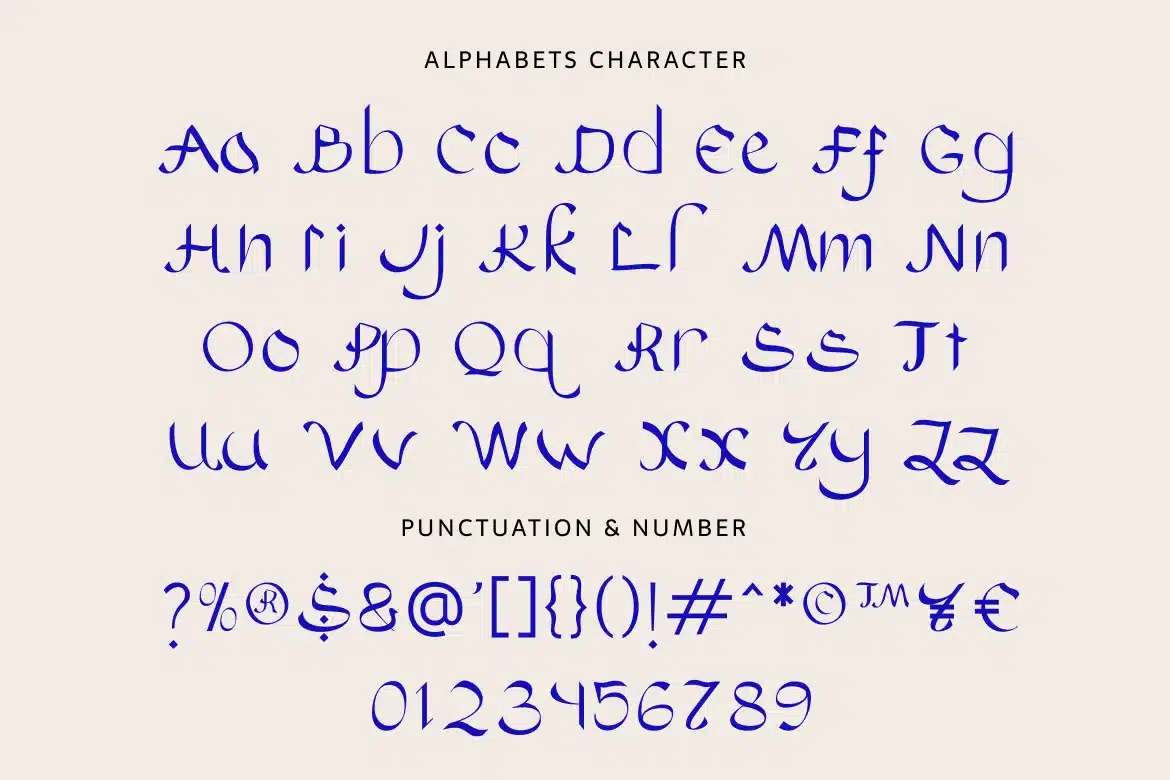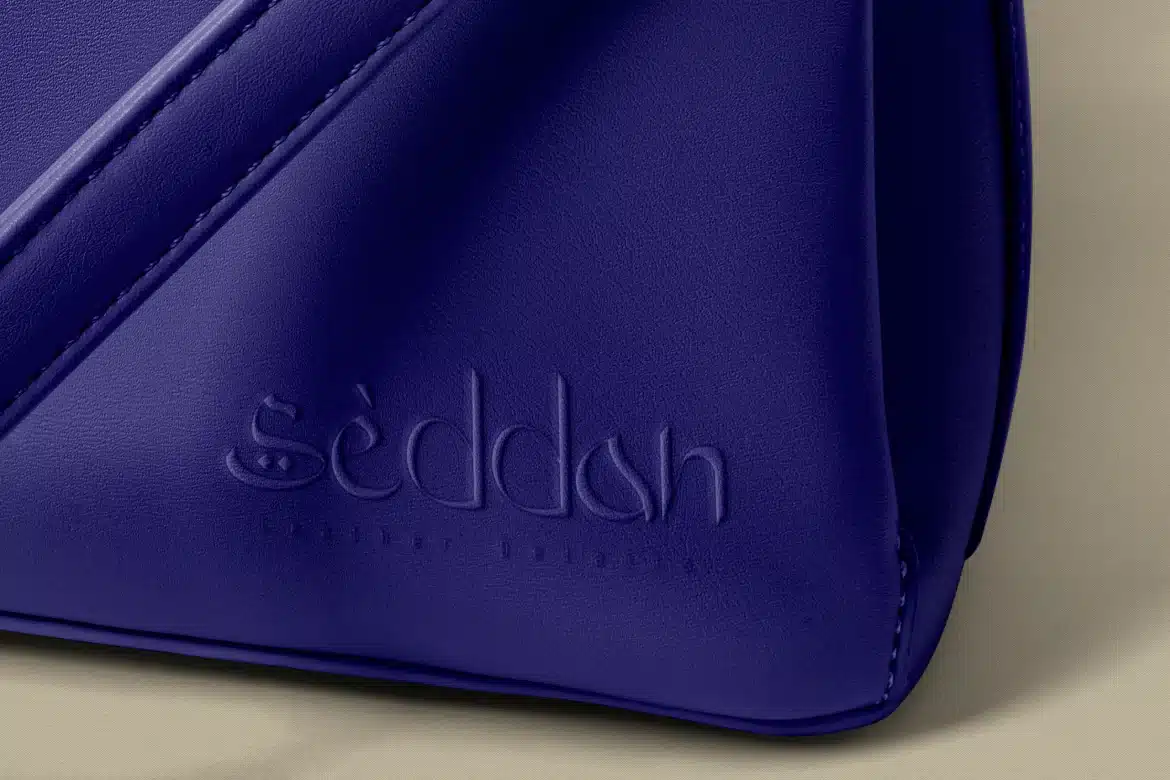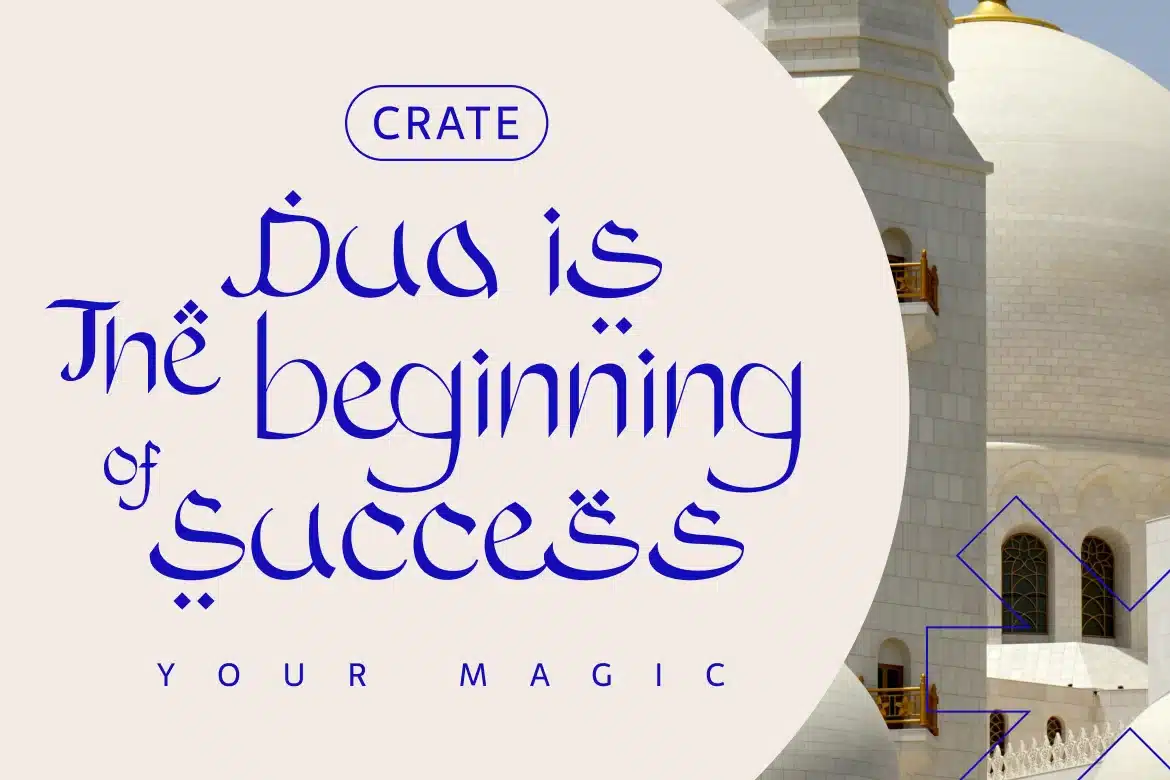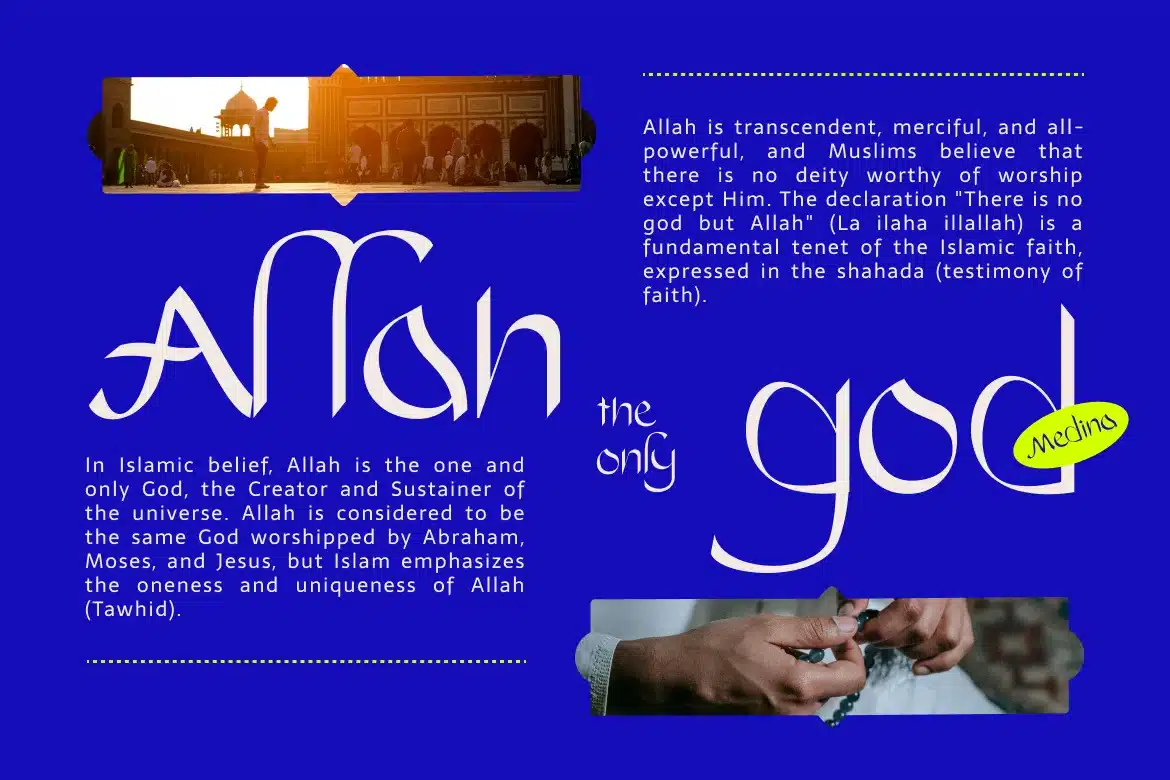
Medina Arabic Style Font
Medina Arabic Decorative Display Font showcases an elegant decorative typeface inspired by Arabic calligraphic aesthetics blended with contemporary display styling. Featuring uppercase, lowercase, numerals, punctuation. This font carries sharp flourishes, stylized terminals, and cultural ornamental details for distinctive visual impact. Delivered in editable font files for branding, packaging, posters, logos, and editorial compositions, it offers artistic versatility for personal and commercial projects. Preview scenes are for presentation purposes and not included in the font files.
Relevance and Use Cases is perfect for Ramadan and Eid branding, halal product packaging, luxury logo design, mosque and cultural event posters, editorial headlines, wedding invitations, restaurant branding, perfume packaging, and artistic projects needing elegant Middle Eastern inspired typography.
Main Features
- Uppercase & Lowercase characters
- Numeral & Punctuations